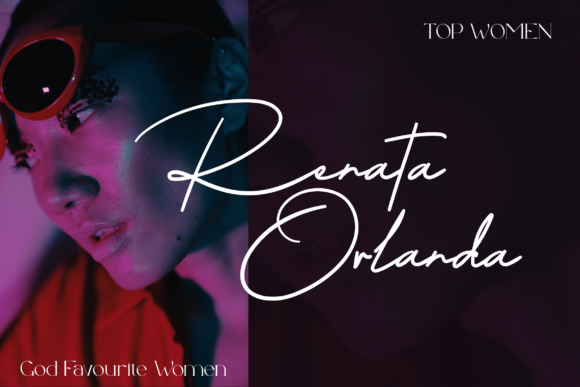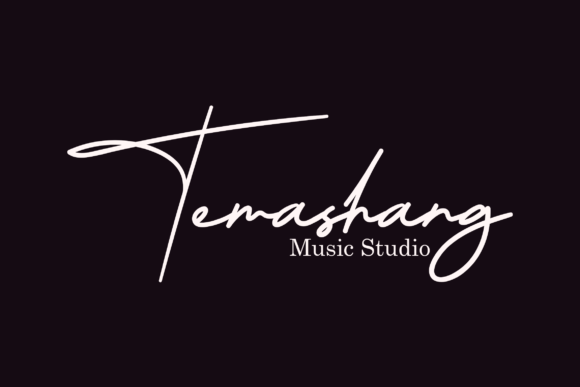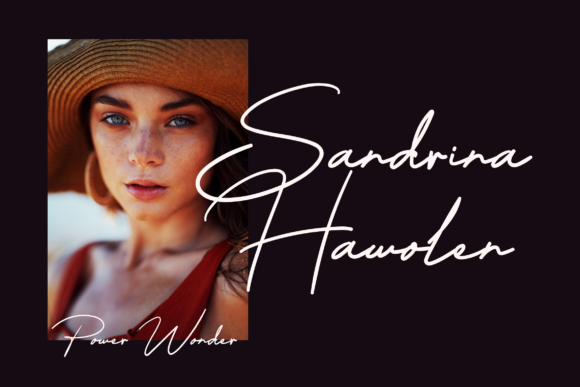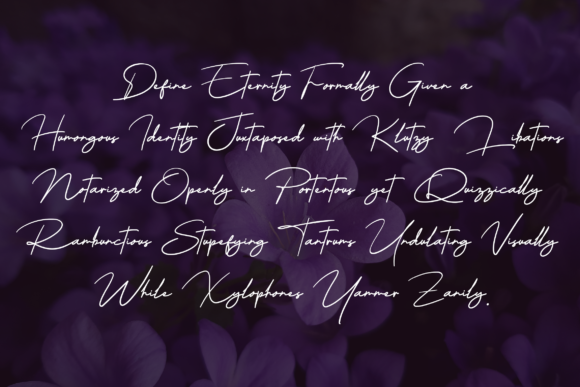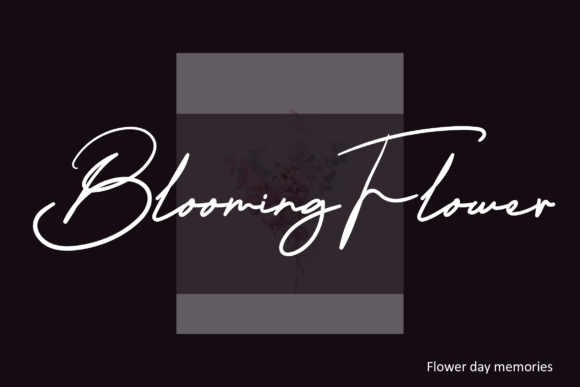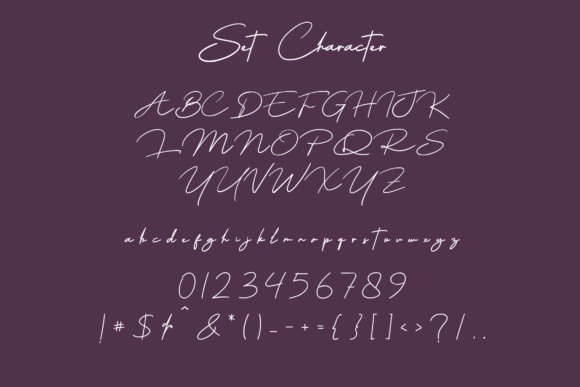
The Perfect Blend of Elegance and Versatility: Bougenville Font
Have you ever been stuck on a design project, staring at a blank page, desperately seeking the perfect font to bring your vision to life? That’s exactly where I was when I stumbled upon the Bougenville Font. Its unique blend of sophistication and playfulness immediately caught my attention, and I knew I had to share it with fellow designers.
The Bougenville Font is a masterful creation, designed to be both elegant and adaptable. Its versatility makes it an ideal choice for a wide range of designs, from wedding invitations and thank you cards to quotes, greeting cards, logos, and business cards. Whether you’re a seasoned designer or just starting out, the Bougenville Font is a valuable addition to your toolkit.
• Unique Characteristics: Bougenville Font features a unique blend of elegance and whimsy, with intricate details and flourishes that add a touch of sophistication to any design.
Bougenville Font Review
I recently had the chance to work with the Bougenville Font, and I must say it’s a mixed bag. Here are my honest thoughts:
• The Bougenville Font has a unique, elegant feel that’s perfect for high-end branding or luxury projects.
• The font’s subtle texture and intricate details make it a great choice for designers looking to add some visual interest to their work.
• The font is highly legible, even at small sizes, making it a great option for body text or small print.
• The Bougenville Font can be quite heavy and overwhelming if used in excess. It’s best to use it sparingly to avoid visual fatigue.
• The font’s unique feel can sometimes make it difficult to read, especially for those with vision impairments or reading difficulties.
• The font’s high-end feel can also make it feel pretentious or over-the-top if not used correctly.
Overall, I think the Bougenville Font is a solid choice for designers looking to add some sophistication and elegance to their work. However, it’s not without its limitations, and designers should be mindful of its potential drawbacks. With careful use and attention to balance, the Bougenville Font can be a real showstopper.